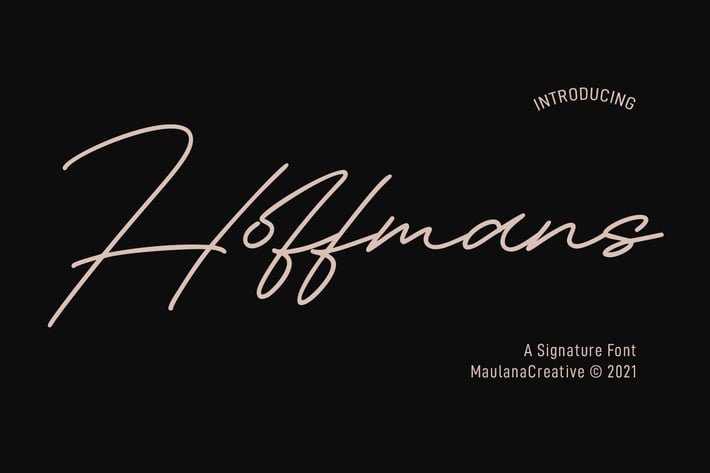
Hoffmans Signature Font
Hoffmans is a Fancy Signature script font. With mono-line stroke, super slanted and fun character with a bit of ligatures and a bit lowercase alternatives. To give you an extra creative work. Hoffmans font support multilingual more than 100+ language. This font is good for logo design, Social media, Movie Titles, Books Titles, a short text even a long text letter and good for your secondary text font with sans or serif. Make a stunning work with Hoffmans font.